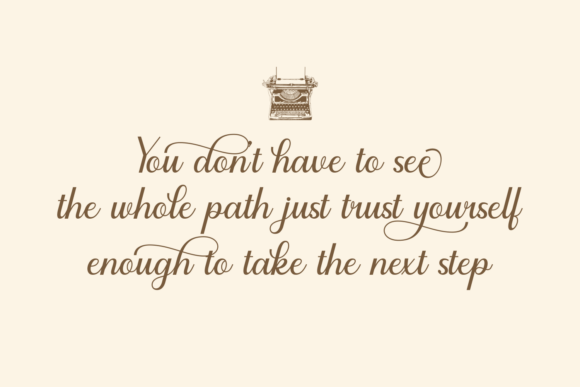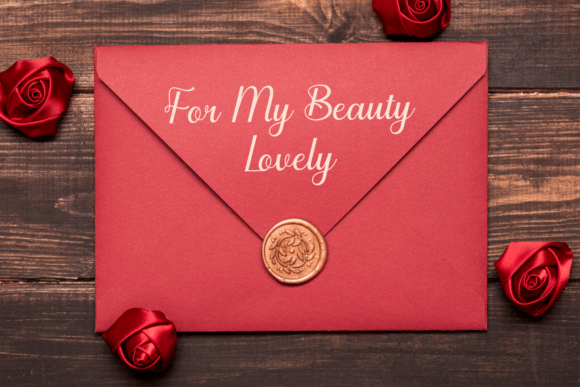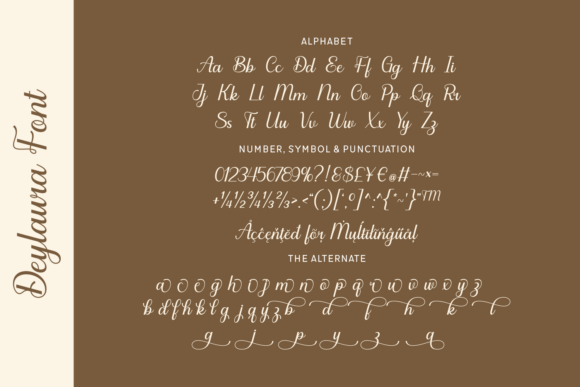
Introduction to Deylaura Font
Imagine the moment when you’re about to finalize your wedding invitation design, and you need the perfect font to make it truly unforgettable. That’s when the search begins – scouring through design resources, browsing through font collections, and testing various styles. But what if you stumbled upon a font that not only elevates your design but also adds a touch of classic elegance? Welcome to the world of Deylaura Font, a sophisticated modern script font that’s about to revolutionize your creative project.
As a designer, you know how valuable it is to have access to high-quality fonts that can elevate your work. The Deylaura Font is more than just a font – it’s a design game-changer. With its expressive swashes and refined style, it’s perfect for formal occasions, wedding suites, or product packaging that demands a touch of sophistication. And the best part? It’s available for free download, making it an accessible resource for designers of all levels.
- Unique, stylish design perfect for adding a touch of elegance to any project
Honest Review: Deylaura Font
As a designer, I’ve had the pleasure of working with a wide range of fonts for various creative projects. Recently, I stumbled upon the Deylaura Font, and I must say it’s a great addition to any design resource library. This font is perfect for designers looking for a high-quality, versatile font that can be used for both web and print projects.
The Deylaura Font is a beautifully designed script font with a transparent background, making it ideal for overlaying on images or using as a standalone text element. The font’s elegant and sophisticated design makes it perfect for creative projects that require a touch of class and sophistication.
- High-quality design with a transparent background ✨
- Perfect for creative projects that require a touch of elegance ✨
- Limited font sizes and styles available ⚠️
- Not ideal for projects that require a bold, sans-serif font ⚠️
Overall, I’m impressed with the Deylaura Font, and I think it’s a great addition to any designer’s toolkit. While it may have some limitations, its high-quality design and versatility make it a valuable resource for any creative project.
The Deylaura Font is a high-quality design resource ideal for creative projects. With its unique style and transparent background, it adds a touch of sophistication to any design.
To get the most out of the Deylaura Font, experiment with different font sizes, colors, and styles to create a unique look. You can also pair it with other design elements to create a cohesive design.
The Deylaura Font is perfect for creating a variety of designs, including:
- Graphic designs and illustrations
- Social media posts and graphics
- Presentation slides and documents